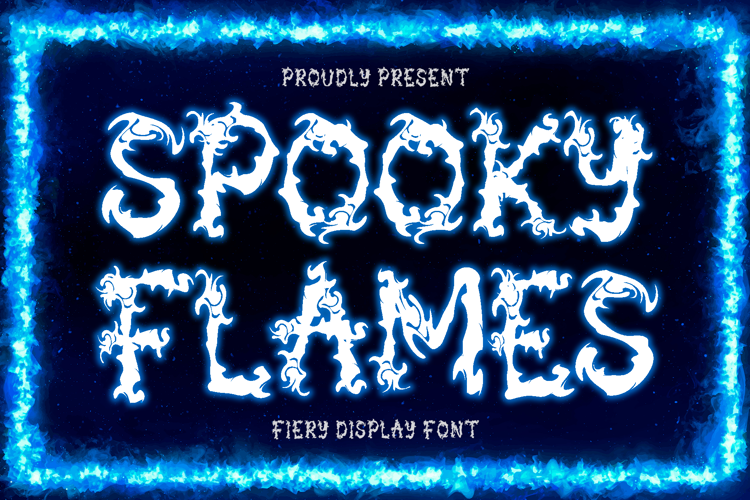
Spooky Flames Font
Spooky Flames is a cool, creepy and detailed display font. It is perfectly suitable for any Halloween-related project or crafty idea! The only limit is your imagination.